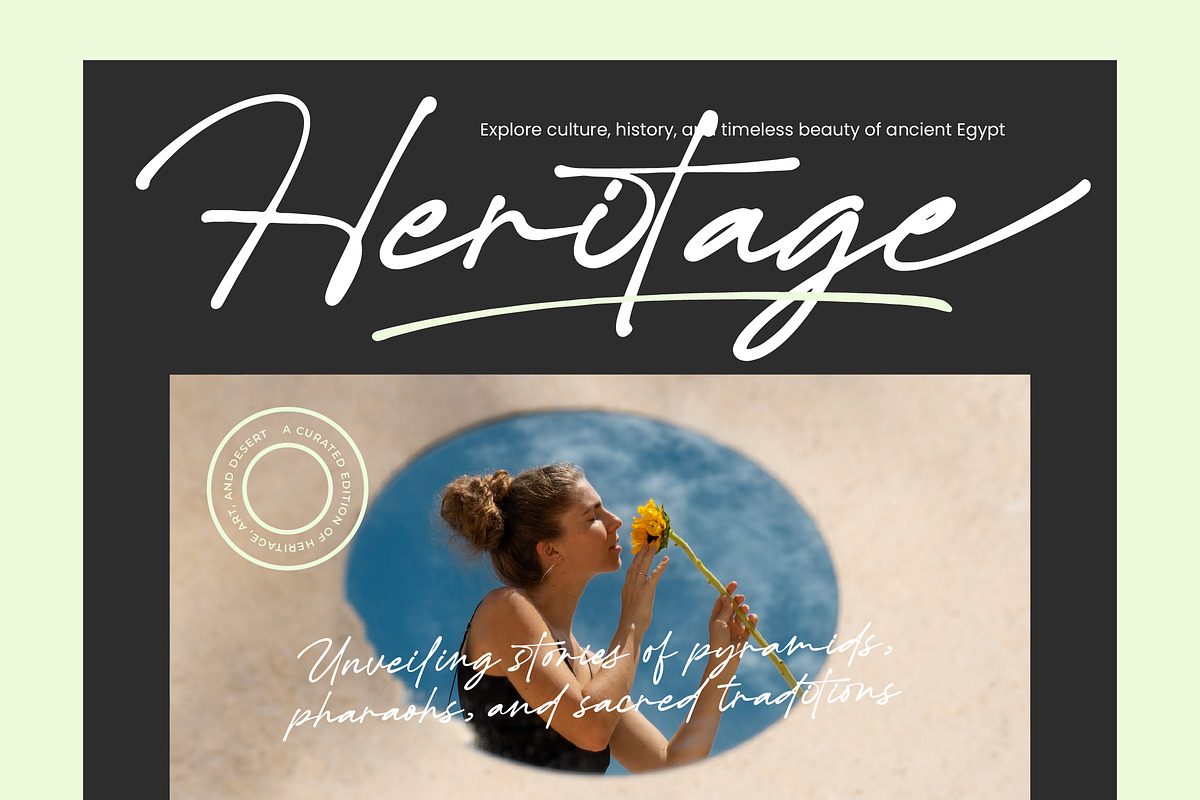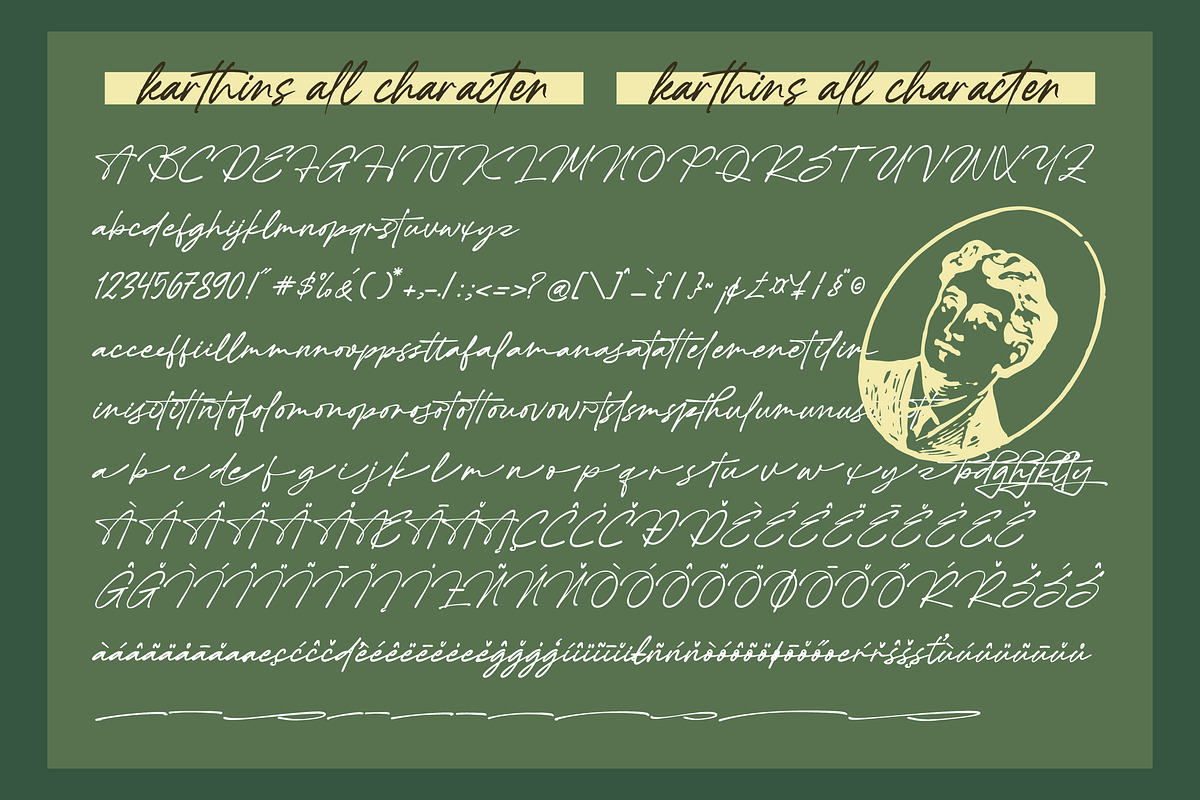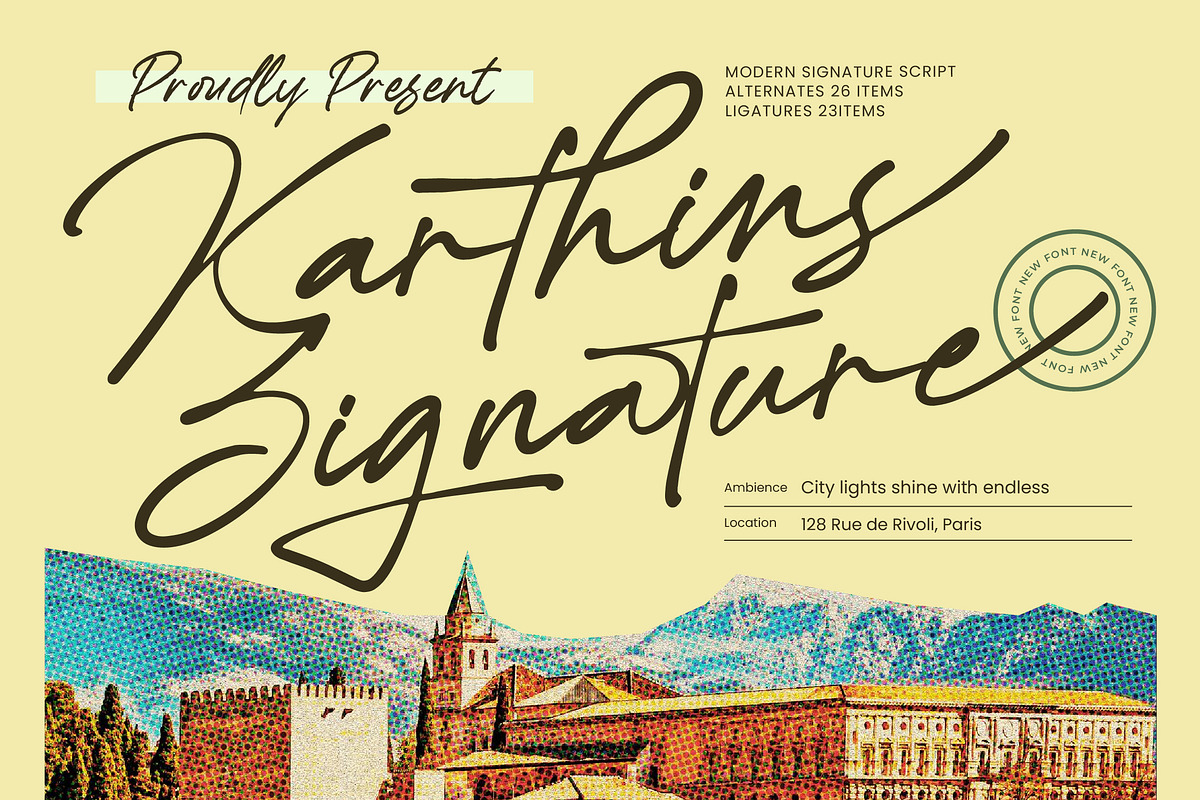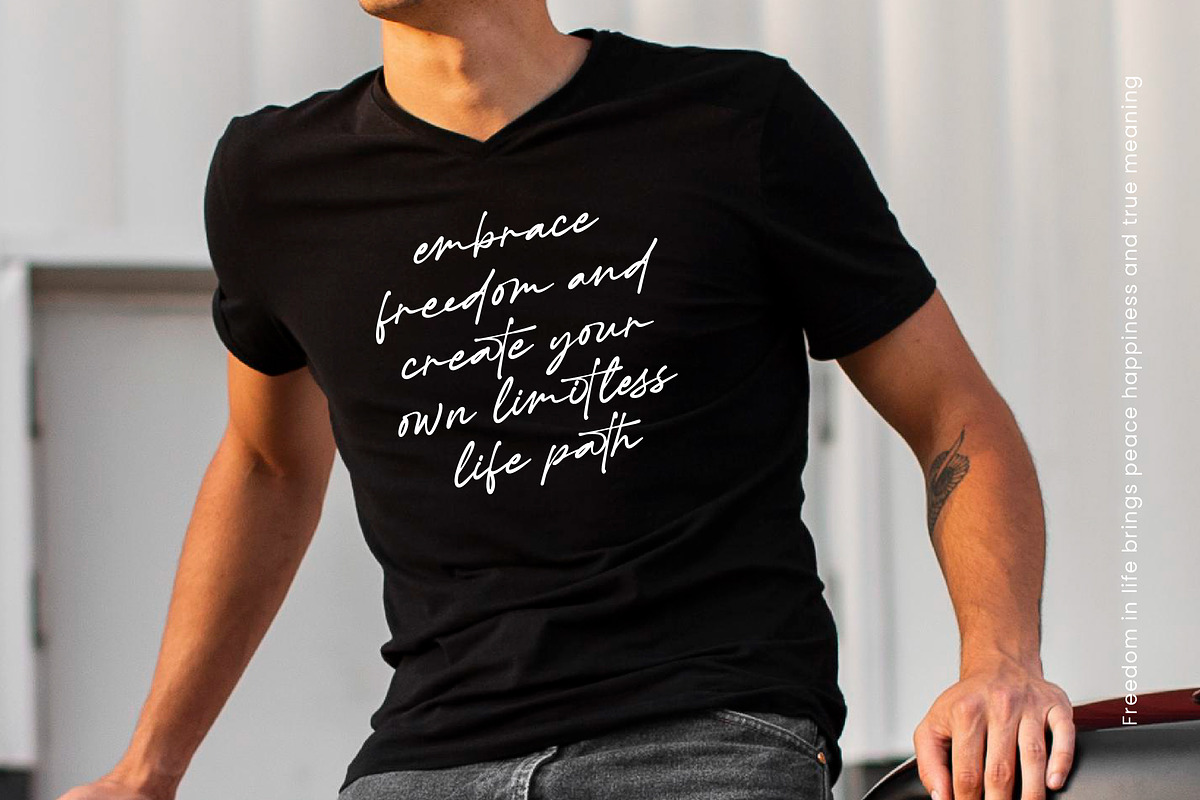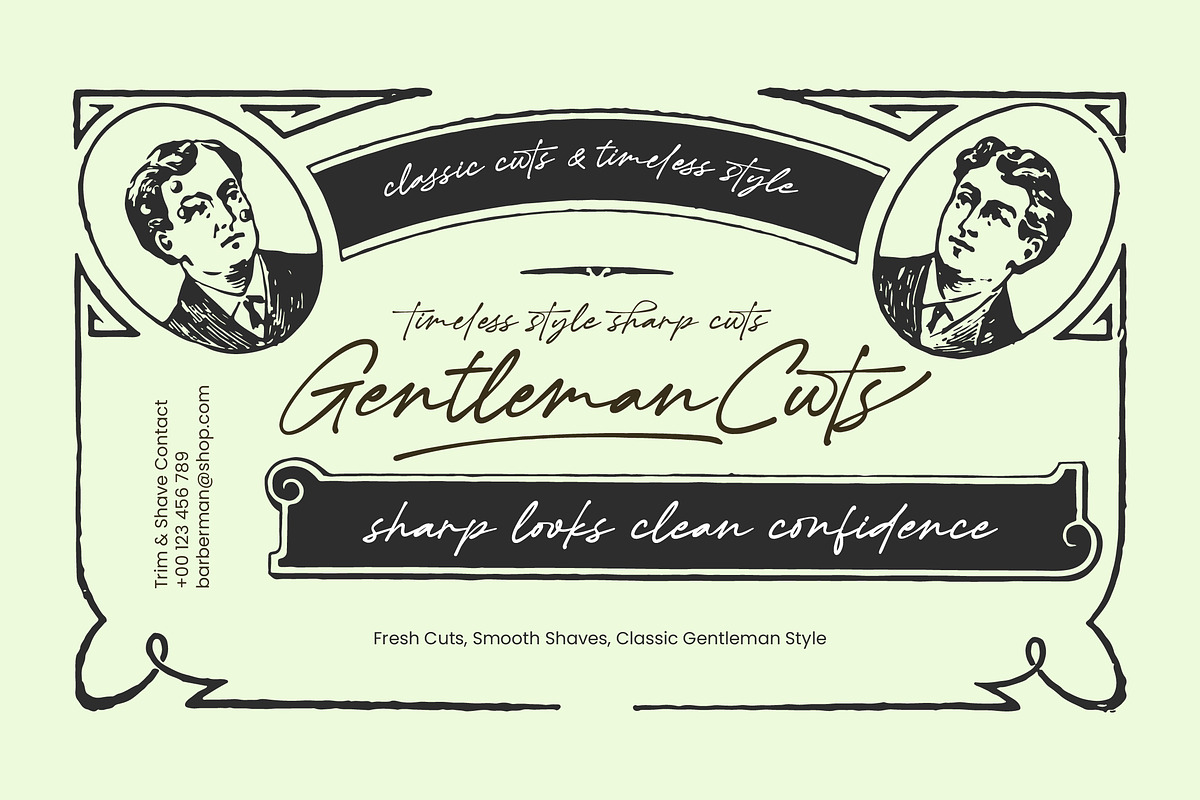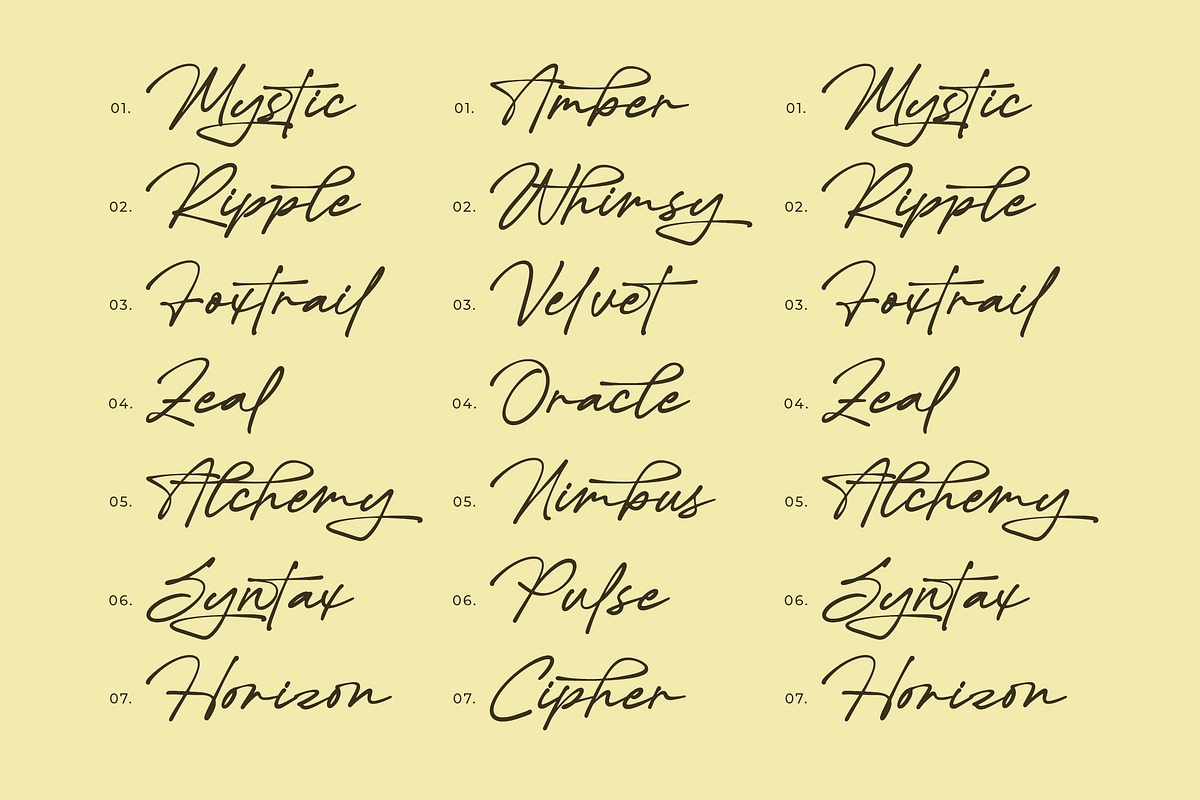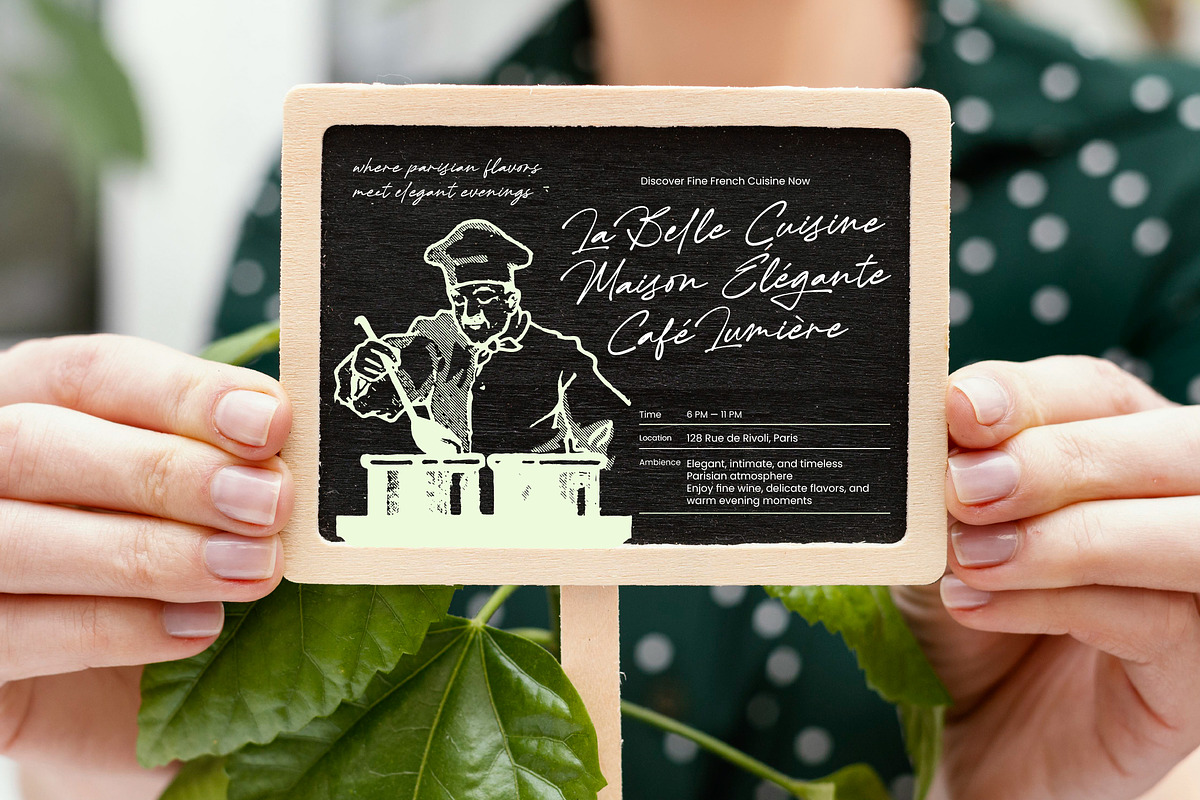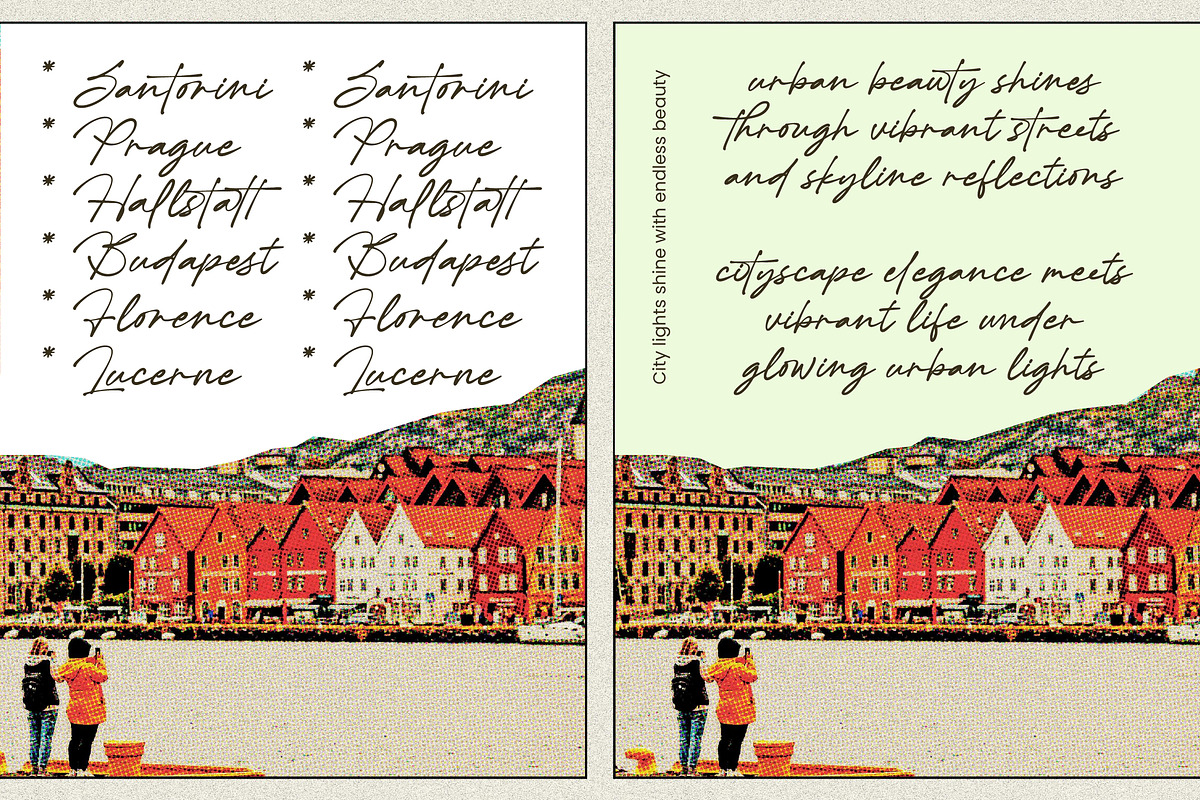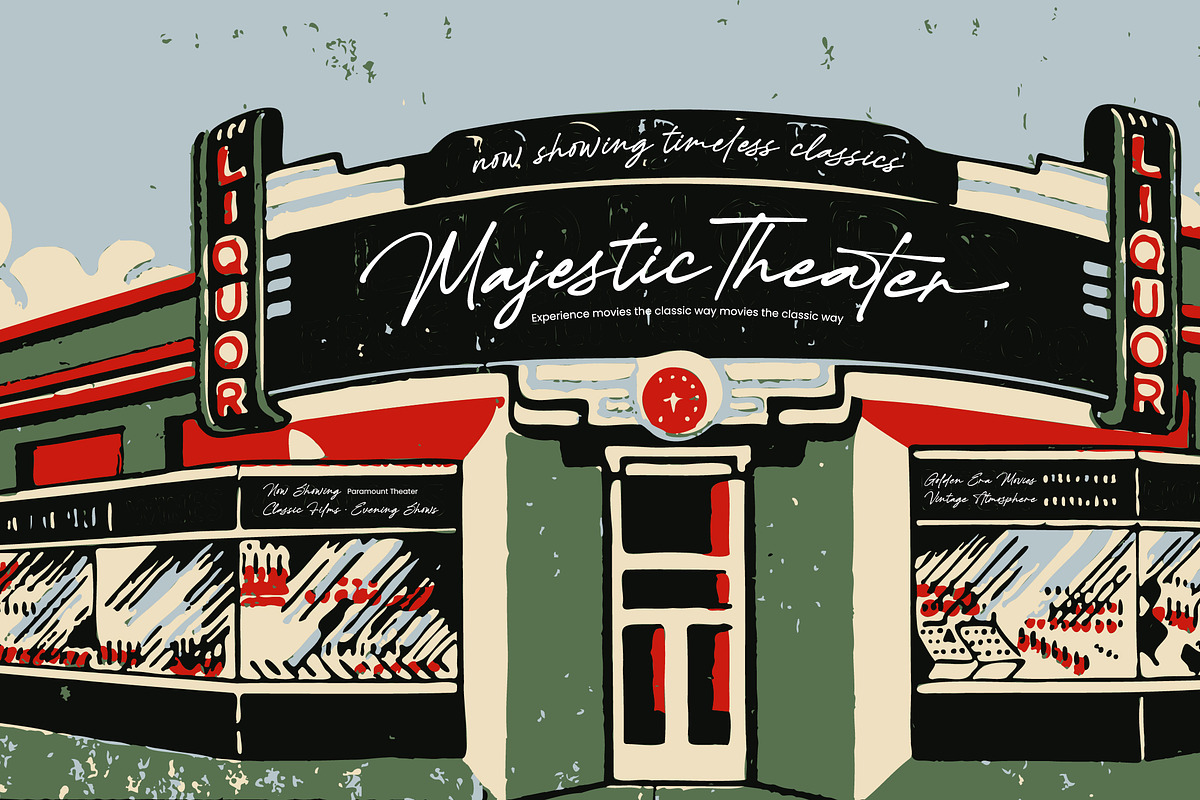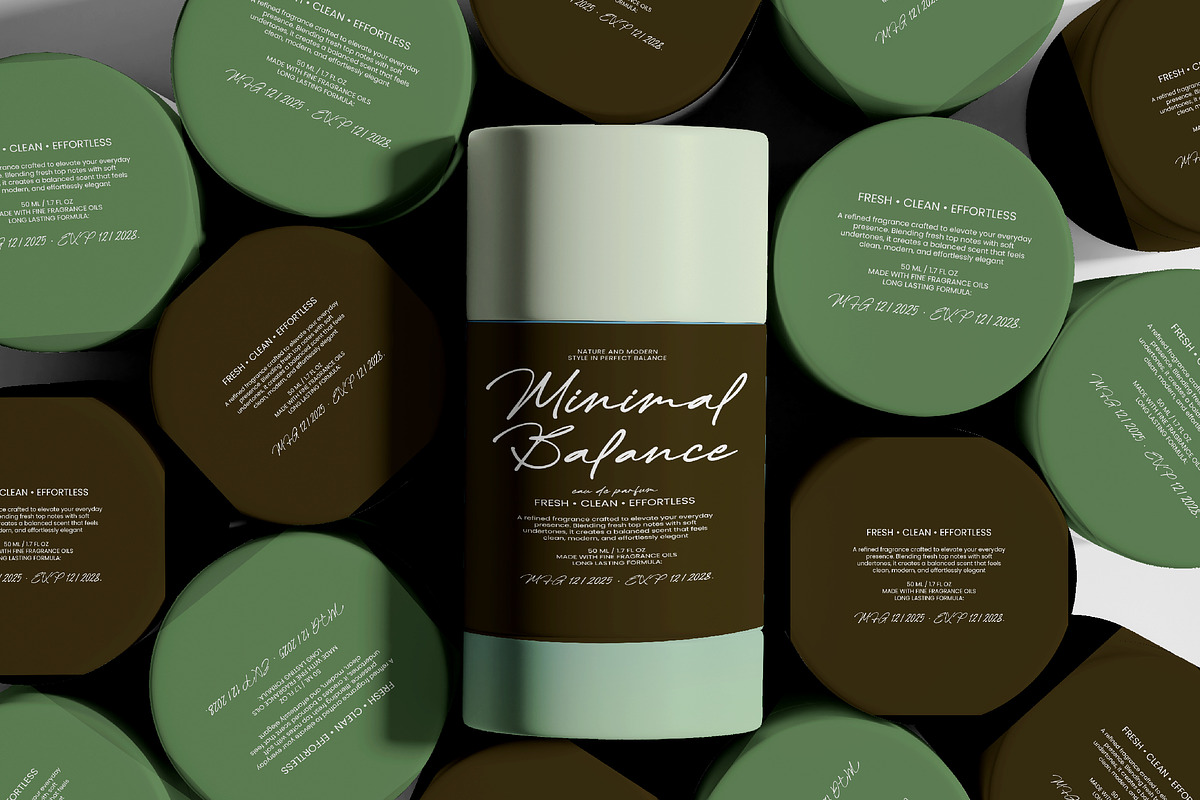
Karthins Modern Signature Script
Karthins - Modern Signature Script , Elevate your creative identity with the effortless elegance of artisanal calligraphy. Karthins - Modern Signature Script represents a masterclass in sophisticated typography, blending fluid, rhythmic strokes with a contemporary aesthetic. This handwritten typeface captures the organic movement of a natural pen, offering a premium look that feels both personal and high-end. Its dynamic letterforms provide a unique visual rhythm, ensuring your designs stand out with an unmistakable sense of artistic flair and professionalism.
Transform your marketing materials into a definitive statement of luxury and refinement. Designed specifically for high-impact visuals, Karthins - Modern Signature Script is perfect for luxury branding, upscale packaging, and high-end editorial design. Whether you are crafting signature logos, exclusive invitation cards, or couture fashion labels, this font adds an air of bespoke craftsmanship. Its versatility makes it an ideal choice for social media branding and personalized stationery where a touch of authentic human connection is required.
Unlock global potential with a typeface engineered for the modern international stage. With its extensive multilingual support, Karthins - Modern Signature Script adapts seamlessly across global markets, making it incredibly versatile for international projects. This technical flexibility is paired with a robust set of OpenType features, including custom ligatures and stylized alternates that allow for custom-tailored designs. By supporting a wide range of languages, Karthins - Modern Signature Script ensures your brand message remains consistent and visually stunning regardless of the geographical audience.
Invest in a versatile design asset that perfectly combines classic charm with modern functionality. Choosing Karthins - Modern Signature Script means prioritizing aesthetic excellence and commercial viability in every creative endeavor. The font’s high-contrast strokes and fluid connectivity create a seamless reading experience that resonates with a sophisticated demographic. Elevate your design portfolio today with Karthins - Modern Signature Script, the definitive choice for professionals seeking a timeless signature style that captures attention and drives brand engagement.